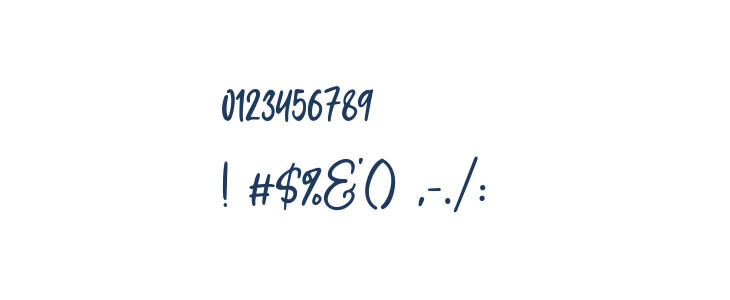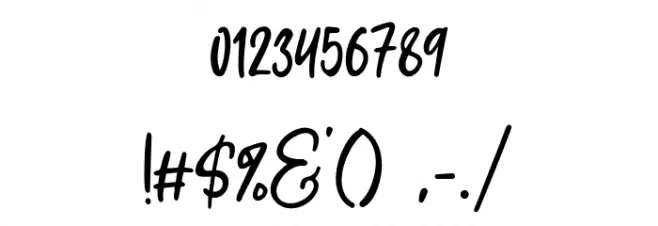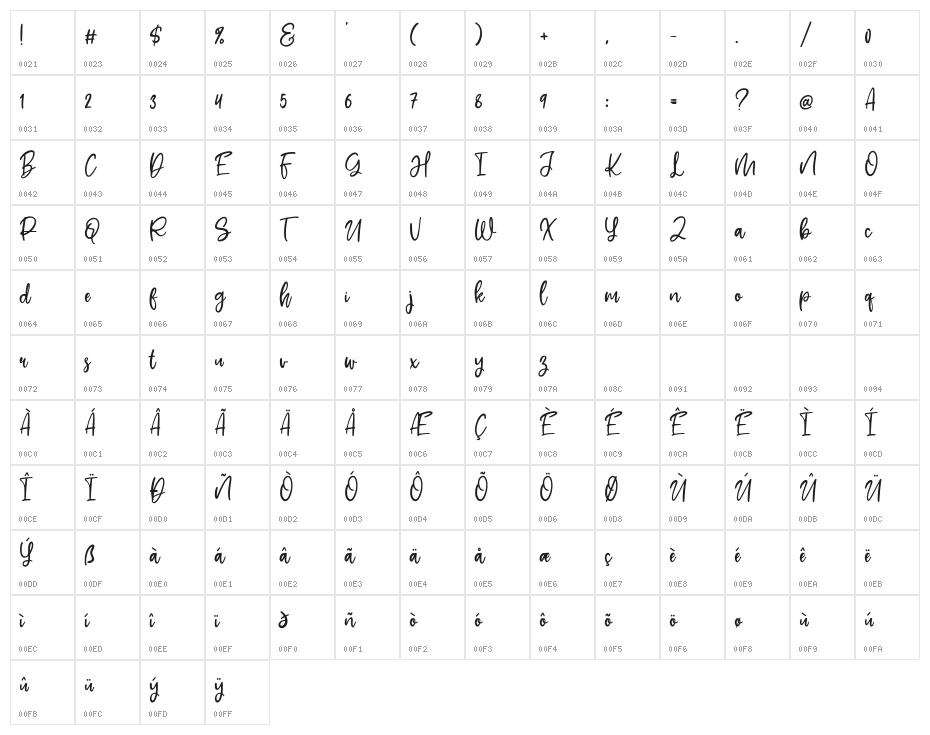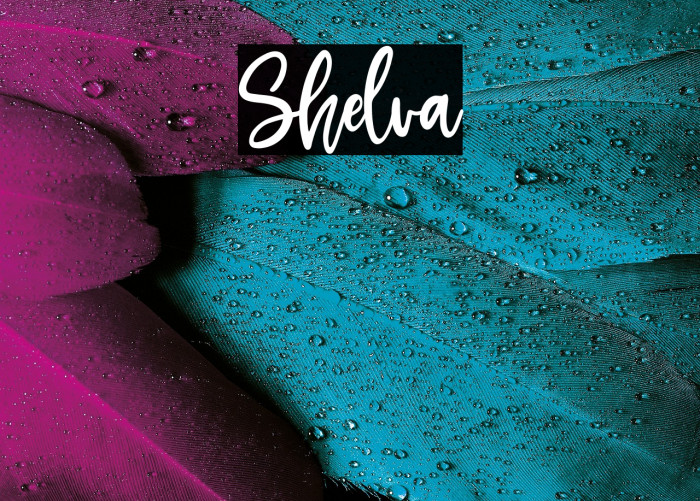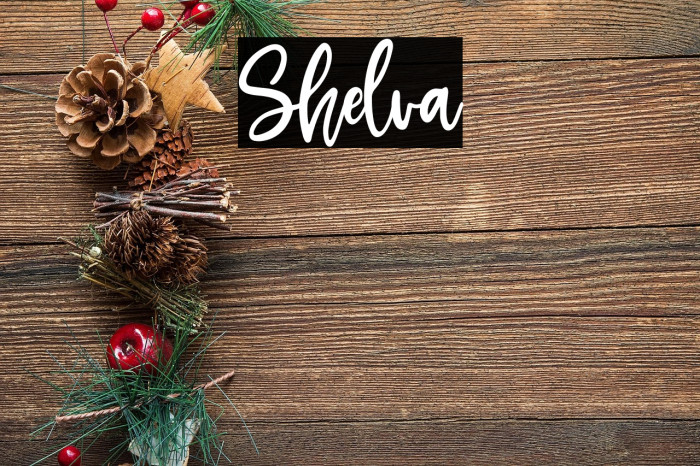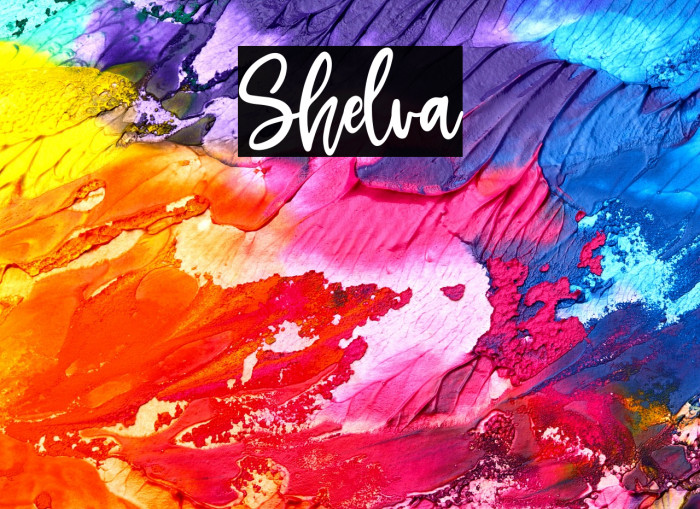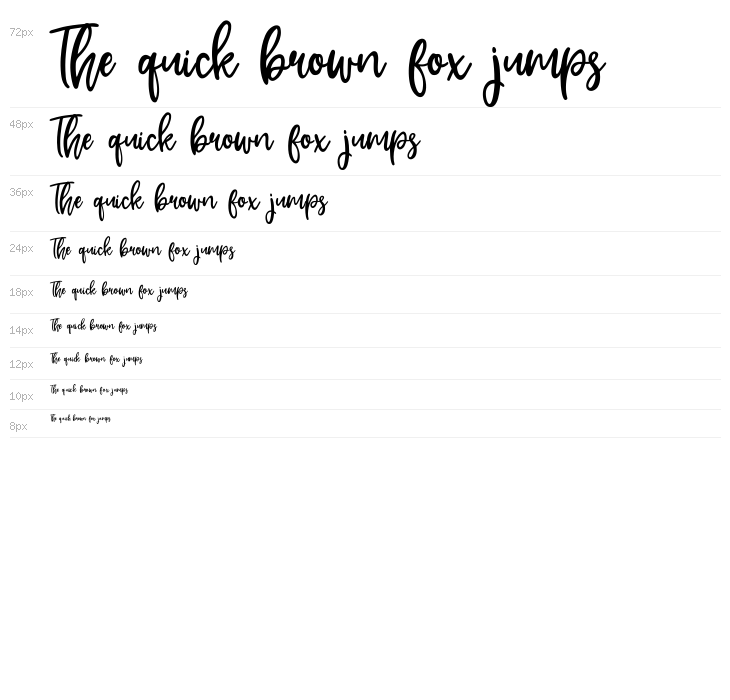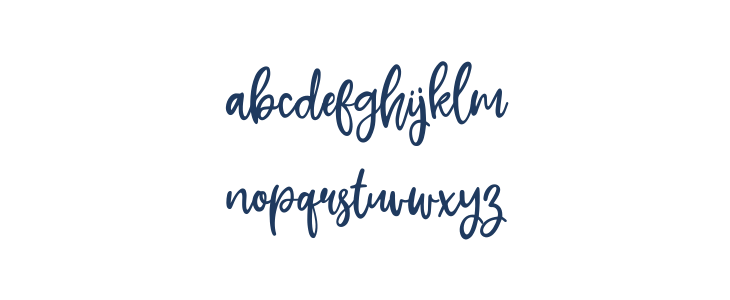
Shelva Font
Shelva Description
This font exudes a lively and expressive character, featuring a handwritten style that is both elegant and playful. The letters are fluid and connected, creating a sense of movement and personality. The uppercase letters are bold and slightly exaggerated, while the lowercase letters maintain a consistent flow with a touch of whimsy. The numbers are clear and distinct, matching the overall style of the alphabet. Special characters are creatively integrated, adding to the font's versatility. This font is perfect for projects that require a personal touch or a creative flair.
| Proposed Projects | Ideal for greeting cards, invitations, branding, and social media graphics. |